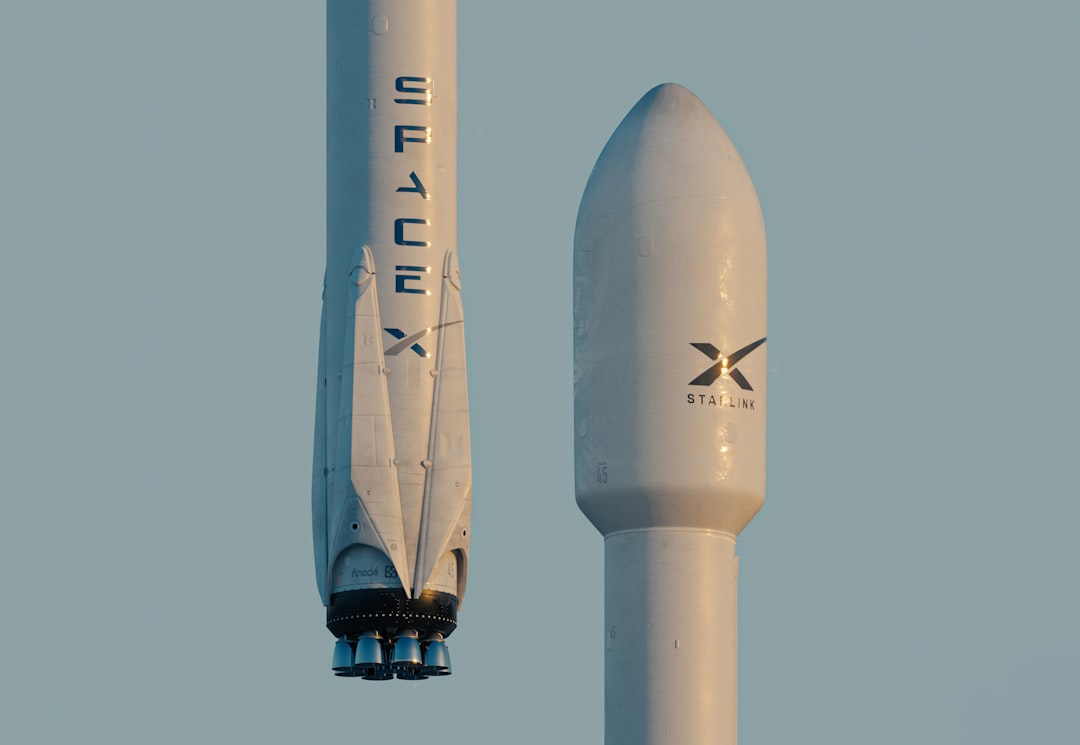
What Font Does SpaceX Use?
Quick answerThe SPACEX wordmark is a custom face — squared, technical capitals with the distinctive elongated, stretched X. Across its site and materials the brand pairs it with a clean, wide technical sans. The closest free lookalikes are engineering-style sans faces like D-DIN and Saira.
If you want the SpaceX font for a space-themed deck, mission patch, or fan poster, the famous “SPACEX” wordmark with the long X isn’t a downloadable retail typeface — it’s custom lettering. This guide explains what the wordmark is, what kind of sans the brand uses around it, and which free technical fonts get you the same precise, aerospace feel.
What font is the SpaceX logo?
The SpaceX wordmark is custom lettering — clean, slightly squared capitals with even strokes, defined by the famously elongated X whose right stroke stretches out under the rest of the word, evoking a trajectory or flight path. It was drawn for the brand, so you won’t find an exact match in any font menu, and as a trademarked mark it shouldn’t be reproduced. The squared, technical character signals precision engineering rather than warmth or whimsy.
That stretched X is the signature move; it’s bespoke artwork, so a similar technical sans can echo the body of the word but not the exact mark.
What font does SpaceX use on its website and materials?
Around the logo, SpaceX leans on a clean, wide technical sans for headings, mission text, and UI — the kind of even-width, engineered face that reads as aerospace-grade and a little austere. Public specimens point to a DIN-style sans in that family of squared, industrial letterforms rather than a soft humanist one. We’d hedge on naming an exact proprietary file, but the register is consistent: precise, wide, technical, and low on decoration. A D-DIN-style face is the closest free read on it.
What are the best free SpaceX font alternatives?
For that precise, wide, technical SpaceX feel, a few free engineering-style sans faces get you close:
• D-DIN (free) — an open take on the classic DIN industrial sans. Its squared, even-width letterforms are the best free match for SpaceX’s technical, aerospace look.
• Saira (free) — a versatile, slightly wide sans on Google Fonts with many weights and widths; great for headings and UI in the same precise register.
• Chakra Petch (free) — a squared, techy sans for a more overtly “spacecraft instrument panel” feel.
SpaceX font and free alternatives
Use case Official / source look Free lookalike Where to get it
Logo wordmark (squared caps) Custom lettering (elongated X) D-DIN + manual X tweak Free (open DIN release)
Headings / technical text DIN-style technical sans Saira Google Fonts (free)
Instrument-panel / techy feel Wide technical sans Chakra Petch Google Fonts (free)
How do I recreate the SpaceX look on a budget?
Set your wordmark in D-DIN or Saira, all caps, tracked out slightly for that engineered spacing. If you want to nod to the signature, you can extend a final stroke manually as a custom flourish — but make it your own letter, not a copy of SpaceX’s X. Lean into the brand’s restraint: black-and-white or deep-space navy, lots of negative space, and crisp technical detail. The minimalism and the long horizontal gesture carry as much identity as the type. To pair a technical sans headline with a readable body face, our font pairing guide covers reliable combinations.
What font does SpaceX use?
The SpaceX logo uses custom lettering with a famously elongated X, not a retail font. Around it, the brand uses a clean, wide DIN-style technical sans. There’s no official downloadable SpaceX font; free faces like D-DIN and Saira get closest to the precise, aerospace look.